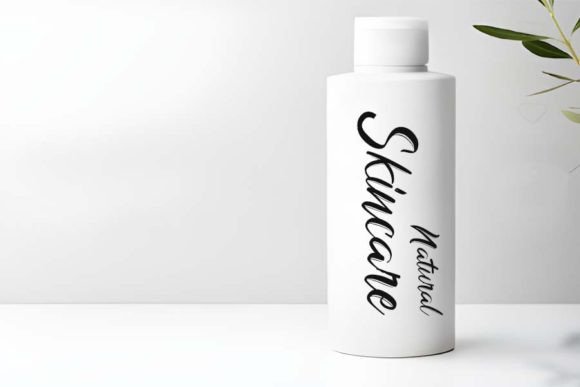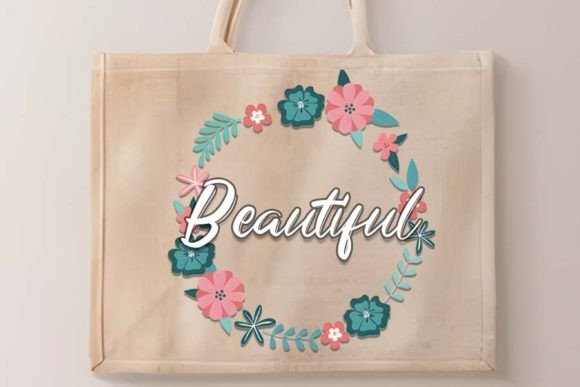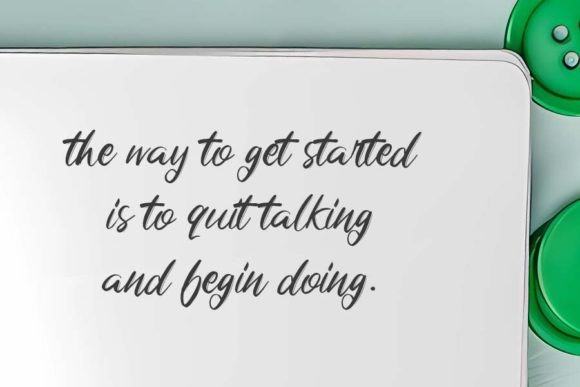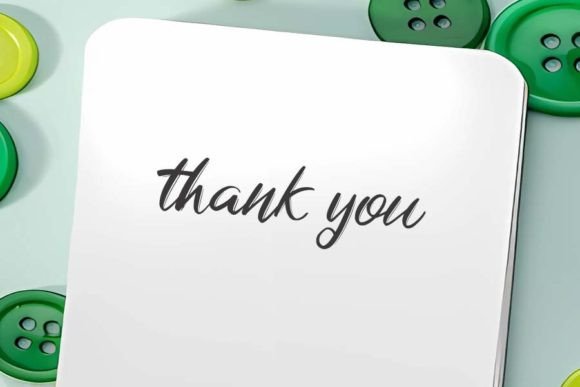
Introducing Graduation Font: Elevate Your Designs with Timeless Elegance
Are you looking for a font that exudes sophistication, elegance, and a touch of classic charm? Look no further than Graduation Font, a stylish handwritten font that brings a contemporary atmosphere to your designs while maintaining impeccable form. Inspired by timeless classic calligraphy, Graduation Font is the perfect addition to any design project, offering a balanced and varied aesthetic that enhances the beauty of your work.
The Inspiration Behind Graduation Font
Graduation Font draws its inspiration from the world of classic calligraphy, where the art of beautiful handwriting is revered. The font’s creator aimed to capture the essence of traditional calligraphy and infuse it with a modern twist, making it suitable for a wide range of design applications. The result is a font that feels both nostalgic and fresh, perfect for designers and crafters seeking to add a touch of sophistication to their projects.
Key Features of Graduation Font
- Handwritten with a Personal Touch: Graduation Font boasts a handwritten style that feels personal and unique, adding a human touch to your designs.
- Contemporary Atmosphere: Despite its classic inspiration, Graduation Font has a contemporary feel that makes it suitable for modern design projects.
- Impeccable Form: The font’s design focuses on impeccable form, ensuring that it looks great in any context, from headings to body text.
- Balanced and Varied: Graduation Font offers a balanced aesthetic with plenty of variation, allowing you to create visually interesting and dynamic designs.
Uses of Graduation Font
Graduation Font’s versatility makes it suitable for a wide range of design projects, including:
- Wedding and Event Stationery: Add a touch of elegance to your wedding invitations, save-the-date cards, and other event stationery.
- Branding and Packaging: Use Graduation Font to create sophisticated brand identities and packaging designs that stand out.
- Digital and Print Media: Enhance your digital and print media projects, such as magazines, brochures, and social media graphics, with the font’s classic charm.
- Crafting and DIY Projects: Perfect for crafters, Graduation Font can be used for handmade cards, scrapbooking, and other DIY projects.
Tips for Using Graduation Font Effectively
To get the most out of Graduation Font, consider the following tips:
- Mix and Match: Combine Graduation Font with other fonts to create visually interesting contrast and hierarchy in your designs.
- Play with Size and Color: Experiment with different sizes and colors to add depth and emphasis to your text.
- Use it Sparingly: While Graduation Font is beautiful, it can be overpowering if overused. Balance it with simpler fonts to maintain readability.
Graduation Font is a stunning addition to any designer’s toolkit, offering a unique blend of classic elegance and modern sophistication. Whether you’re working on a wedding invitation, a brand identity, or a crafting project, this font is sure to elevate your designs and leave a lasting impression. With its impeccable form, balanced aesthetic, and versatile uses, Graduation Font is an excellent choice for anyone seeking to add a touch of timeless charm to their work.